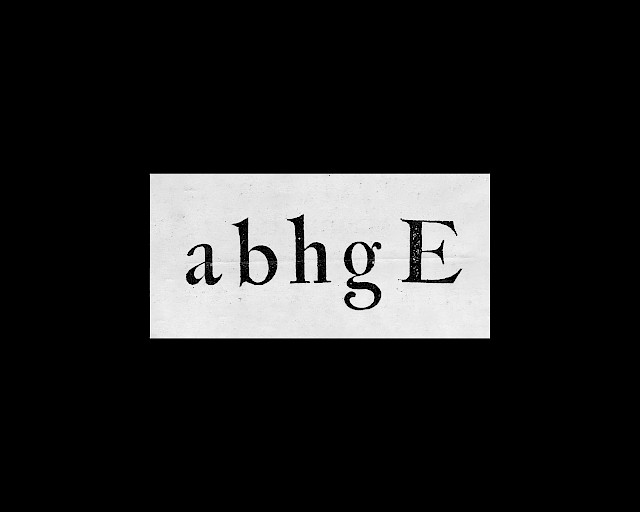
Leaf
History
Henry Rousseau, Le reve (1910), Museum of Modern Art, New York
Letters from Bartholomeus Voskens, dutch type designer (circa 1669)
Caravaggio, Canestra di frutta (1597-1600), Pinacoteca Ambrosiana, Milano
ToLeaf unfurls its organic shapes from the legacy of Bartholomeus Voskens, a luminary Dutch type designer from the 17th century. In its quest for natural elegance, the typeface marries a serif construction with vegetal-like terminals and a deliberate embrace of low contrast, thus displaying a bold character, even in small sizes. Moving away from the reference sample on the proportions aspect, ToLeaf embeds a large x-height with small difference to the uppercases, making it able to be used in compact typesetting. Suited as much for body text than for display use, ToLeaf is composed of a minimal yet efficient pair of cut: regular and italic. Designed between 2015–2018, first released in 2018.
Showcases
Trans Magazin Website
by Pierre Benoit
Trans Magazine
by Pierre Benoit